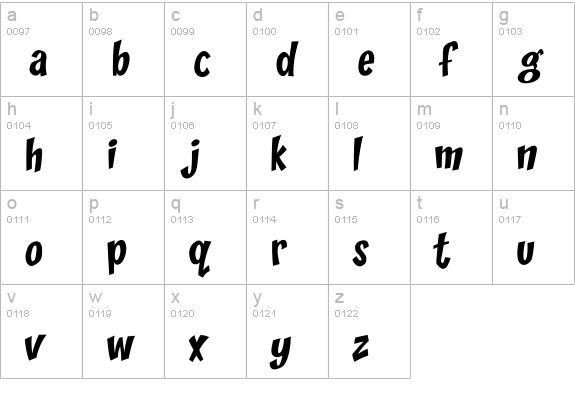
Introducing CCZoinks font - a whimsical and playful typeface that will add a touch of fun to your designs. With its quirky characters and unique charm, CCZoinks is perfect for projects that require a touch of creativity and lightheartedness. This delightful font is freely available for download at FontsMarket.com, making it easily accessible for all your design needs. Whether you're working on a children's book, a birthday invitation, or a poster for a fun event, CCZoinks is sure to bring a smile to your audience's face. With its smooth lines and bold strokes, CCZoinks is both eye-catching and easy to read, making it a versatile choice for a wide range of design projects. So why wait? Download CCZoinks font today and let your creativity soar!